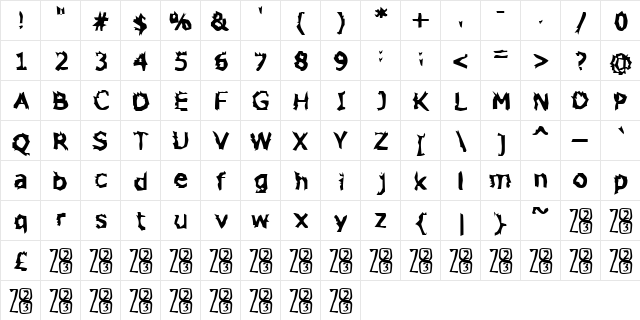
Zone23_explosions Normal
Design Context for Zone23_explosions Typeface
Zone23_explosions is a composed and adaptable typeface that performs quietly and consistently across a wide range of design contexts.